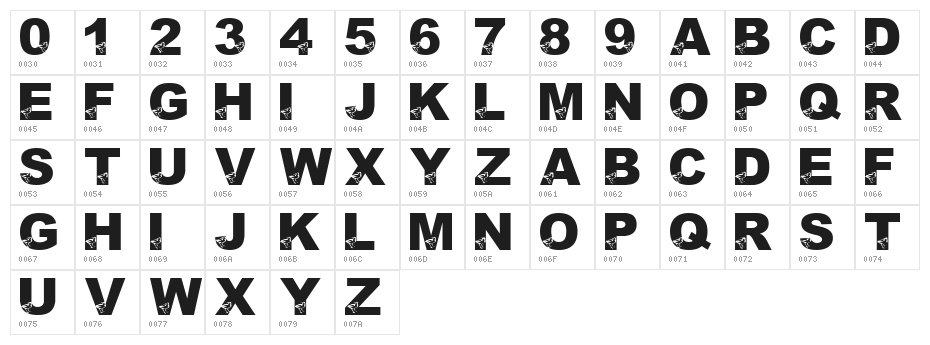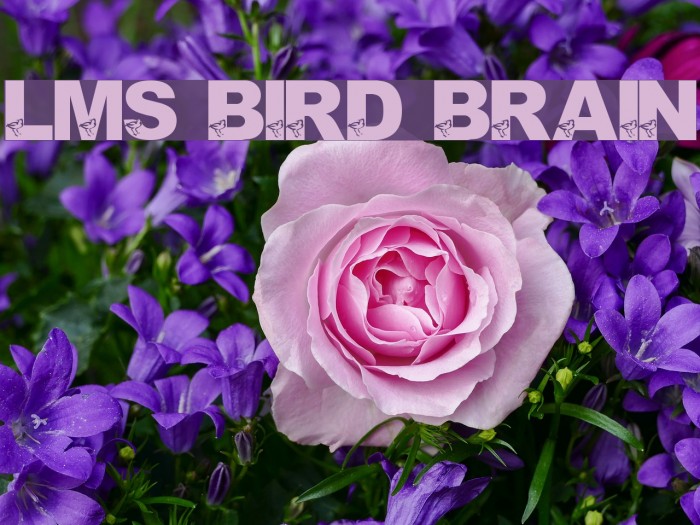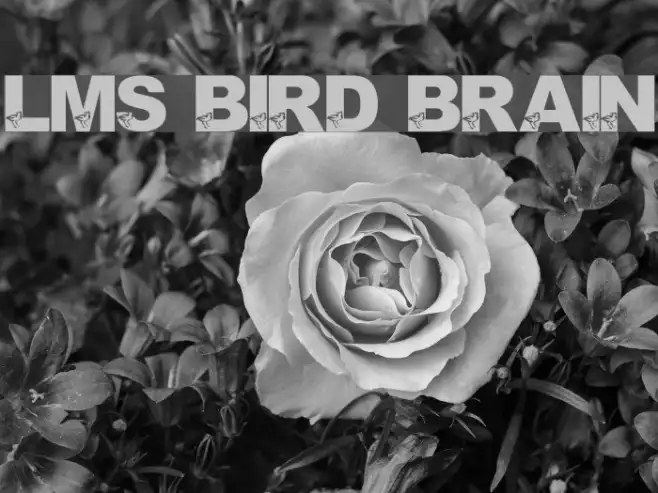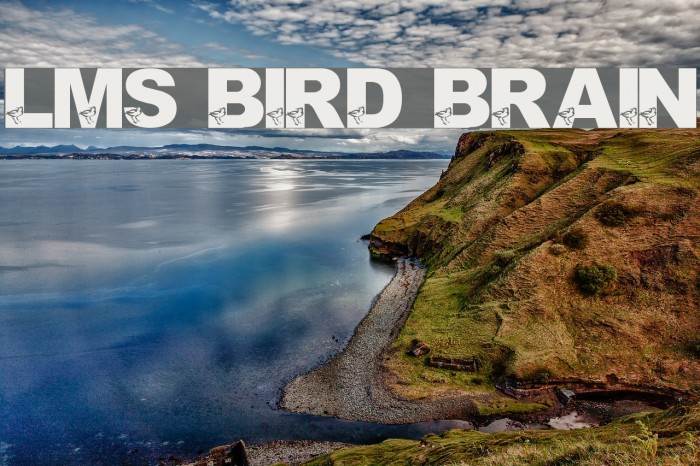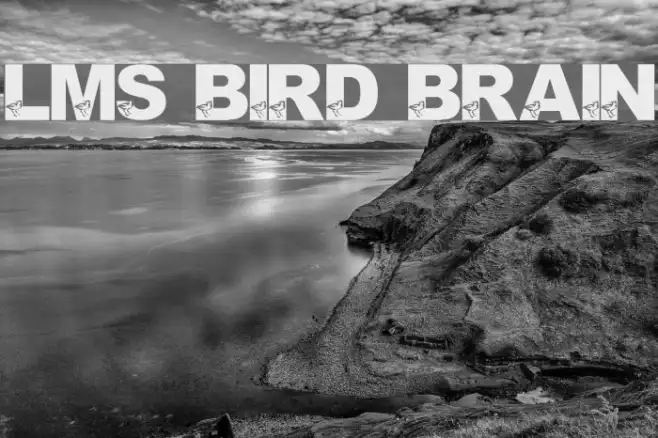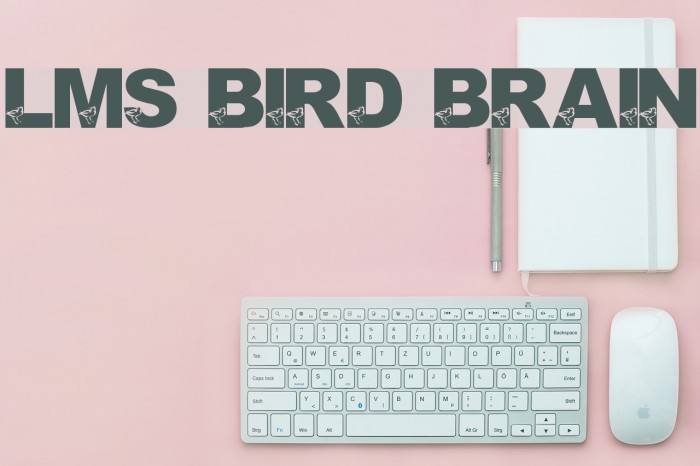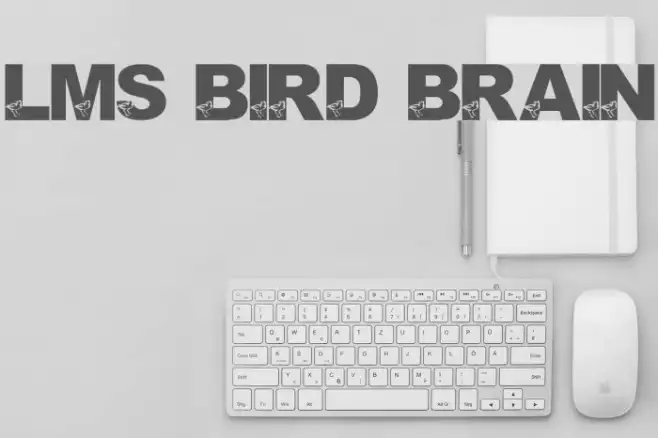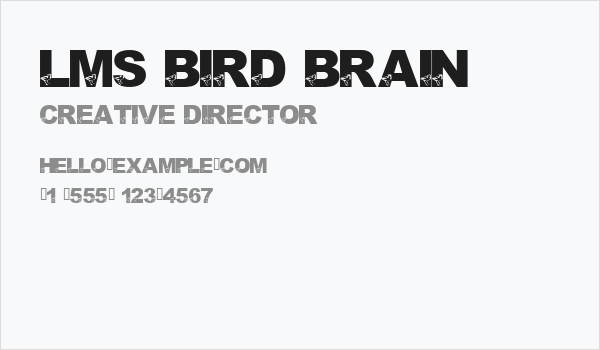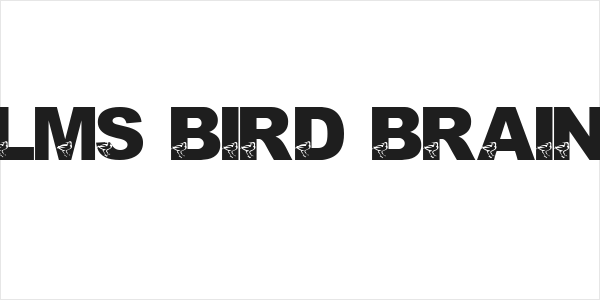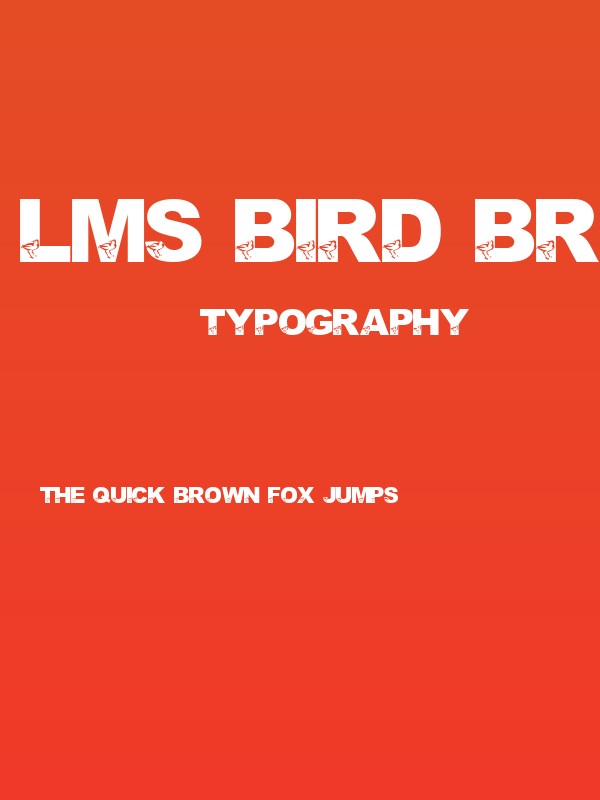
LMS Bird Brain Font
LMS Bird Brain Description
This decorative font features bold, uppercase letters with a unique bird motif integrated into each character. The design is striking, with a playful yet sophisticated style that adds a whimsical touch to any text. The bold weight and high contrast between the thick strokes and the intricate bird details make it ideal for eye-catching designs. The font's overall style is modern with a decorative flair, making it suitable for creative projects that require a distinctive and artistic appearance.
| Proposed Projects | Ideal for branding, posters, album covers, and any project needing a unique, artistic flair. |